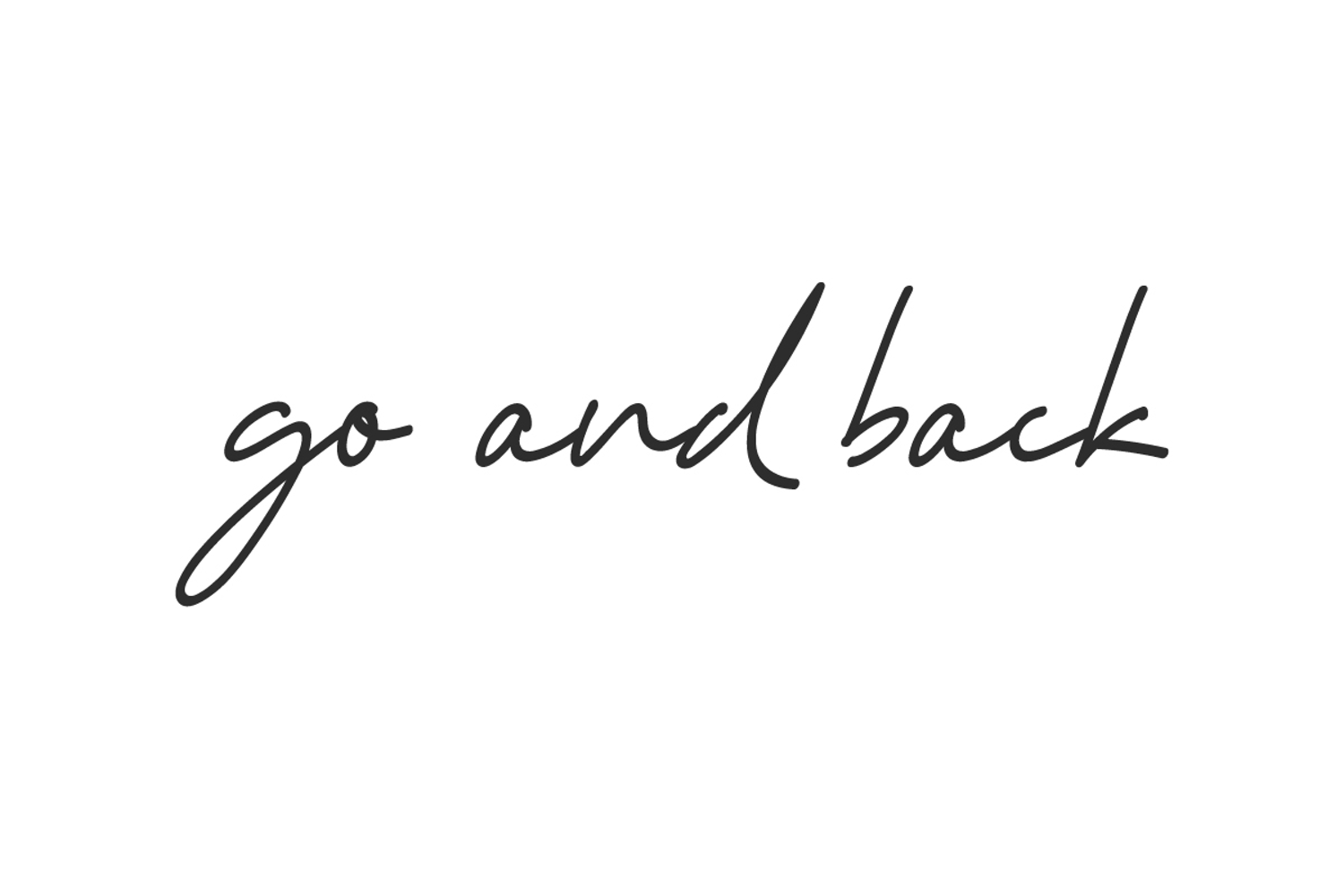
Go And Back
Go And Back Font is a beautiful signature handwritten font that gives a luxurious and charming feel. It will add a graceful handmade touch to your visuals. Perfect for apps, banner, blogs, brand identity, cover, embossed design, greeting cards, headers, invitation, label, logo, mockup, product packaging, quotes, signboard, sticker, template, title, watermark, website, etc.
Go And Back Font includes a complete set of Basic Uppercase and Lowercase Characters, Numbers, Punctuation Marks and Symbols. Each letter is meticulously and flawlessly crafted to ensure perfect shape and readability. Perfect for advertising, authors, beauty clinic, bridal boutique, cosmetician, event organizer, florist, graphic design, jewelry, printing, publishing, real estate, skincare, spa salon, urban farming, wedding, writer, etc.